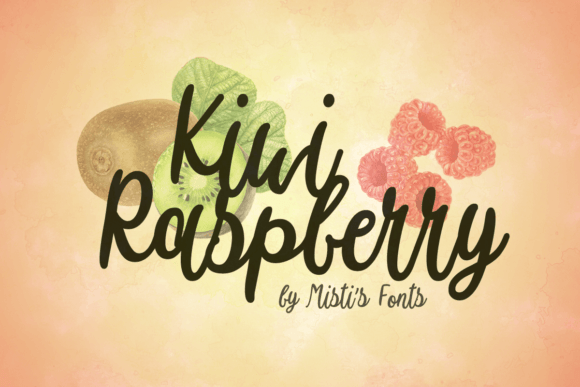
"Embrace the Exuberance of Summer with Kiwi Raspberry Font: Your Gateway to Cursive Charm"
In the realm of typography, Kiwi Raspberry Font stands as an enchanting creation, a symphony of whimsical strokes that evokes the carefree spirit of summer. Its unique cursive style, meticulously crafted by the talented Misti, is a testament to the power of handwritten artistry. Kiwi Raspberry is not merely a font but an invitation to let your creativity flourish, to embark on a journey of self-expression that knows no bounds.
With its playful personality, Kiwi Raspberry Font is the perfect companion for your summer projects. Picture your designs adorned with its lively charm, whether it's a heartfelt card for a loved one, an eye-catching poster for a community event, or a personalized t-shirt that reflects your unique style. Its versatility extends from the digital realm to the physical world, making it ideal for vinyl and sublimation projects, where its vibrant presence will undoubtedly turn heads.
But Kiwi Raspberry Font's allure transcends its aesthetic appeal. It possesses an innate ability to evoke emotions and establish connections. Its charming curves and playful flourishes add a touch of warmth and personality to any project, creating a sense of intimacy and connection with your audience. Whether you're a seasoned designer or just starting your creative journey, Kiwi Raspberry Font will effortlessly elevate your work, transforming it into an expression of your authentic self.
Beyond its captivating appearance, Kiwi Raspberry Font is a practical choice for designers seeking both style and functionality. Its carefully crafted characters ensure exceptional legibility, even at smaller sizes, making it the ideal choice for a wide range of applications, from social media graphics to website headers. Its extensive character set, including multilingual support, opens up a world of possibilities for creating designs that resonate with a global audience.
Don't let this summer pass by without experiencing the magic of Kiwi Raspberry Font. Its enchanting cursive style, coupled with its versatility and emotional resonance, makes it an indispensable tool for any designer seeking to create captivating and memorable designs. Take the plunge and unlock the boundless potential that awaits you with Kiwi Raspberry Font today.